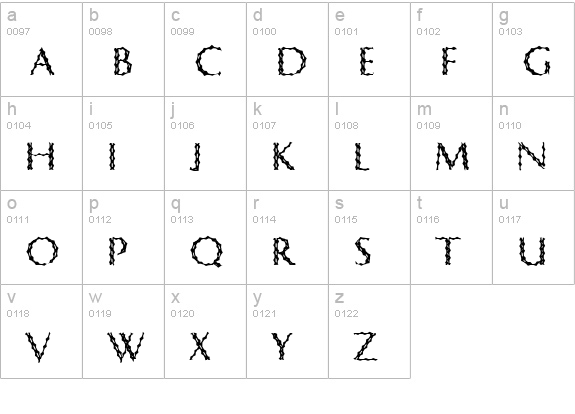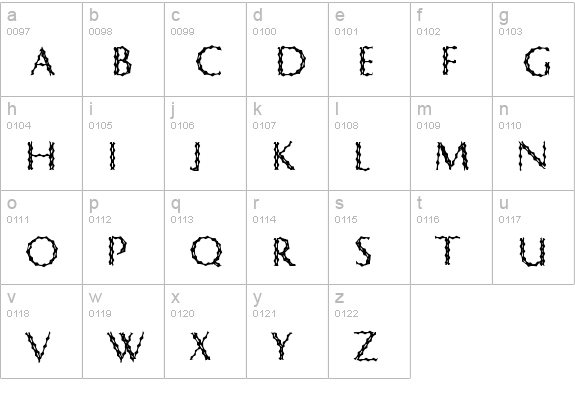
CrypTiX Font Details
Introducing CrypTiX font, a modern and stylish typeface that will bring a touch of sophistication to your designs. With its sleek and elegant lines, CrypTiX is perfect for creating eye-catching logos, branding materials, and more. The font features a unique combination of sharp edges and smooth curves, giving it a contemporary and edgy look. What sets CrypTiX font apart is not only its striking design but also the fact that it is available for free download at FontsMarket.com. That's right, you can get your hands on this premium font without spending a dime. Whether you're a designer looking to add a fresh twist to your projects or a business owner in need of a distinctive font for your brand, CrypTiX is the perfect choice. Don't miss out on the opportunity to elevate your designs with CrypTiX font. Download it for free today and unleash your creativity like never before!